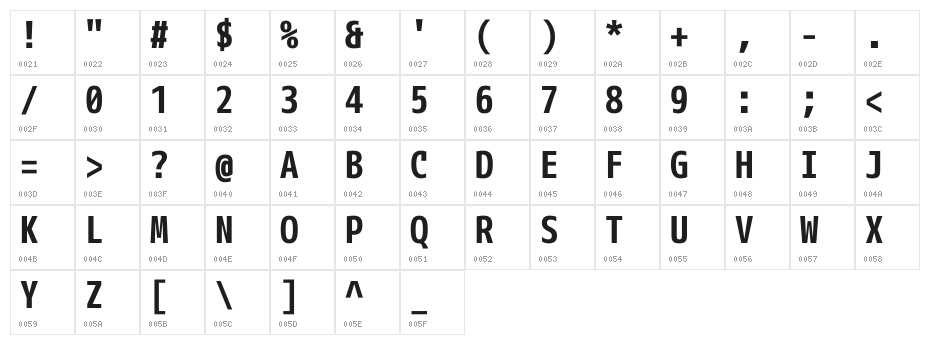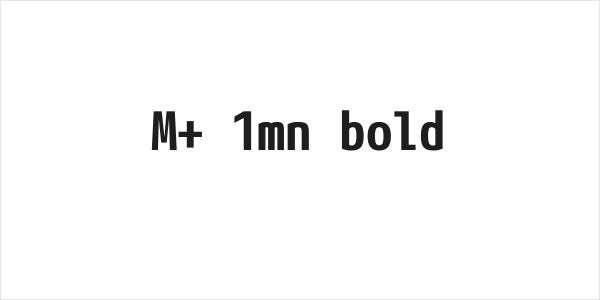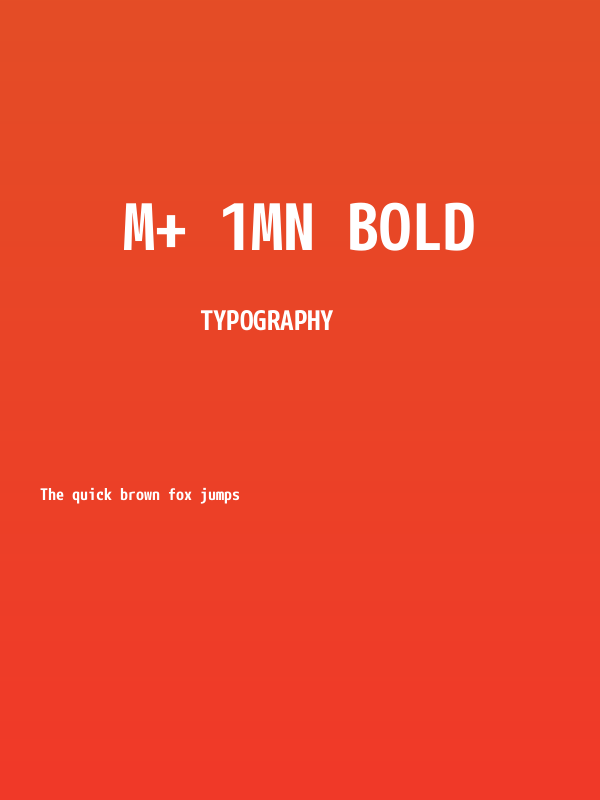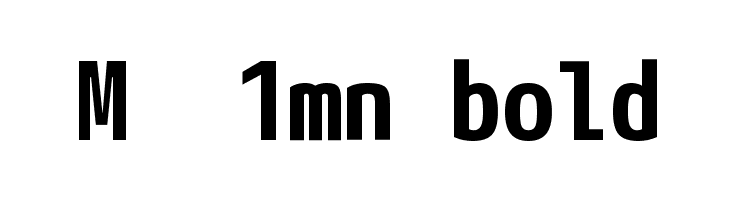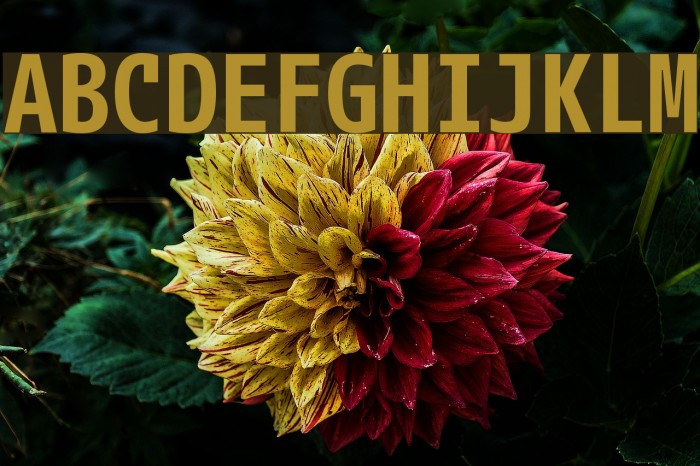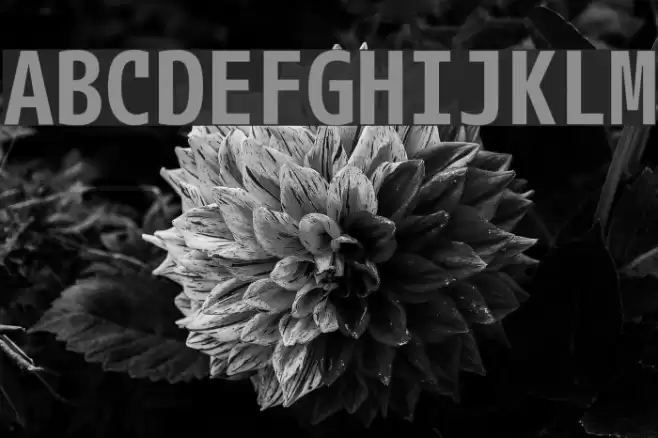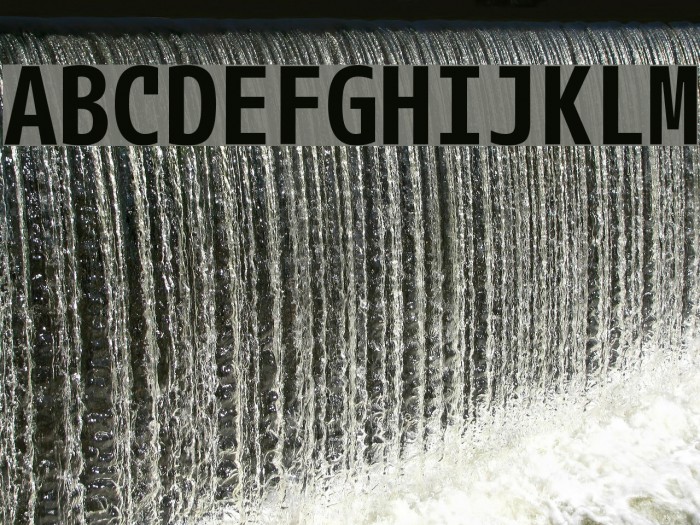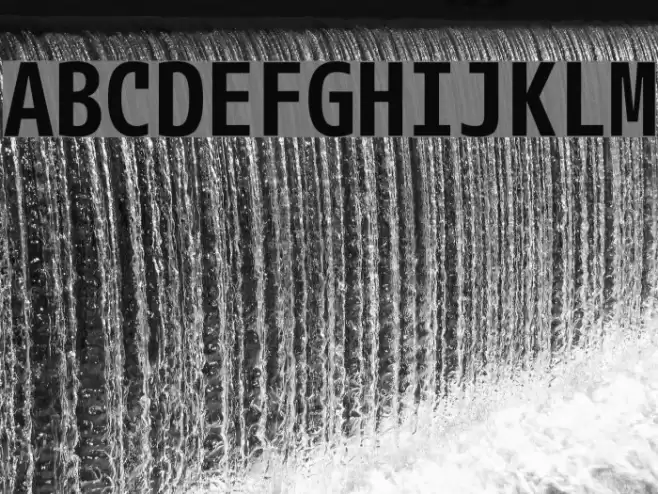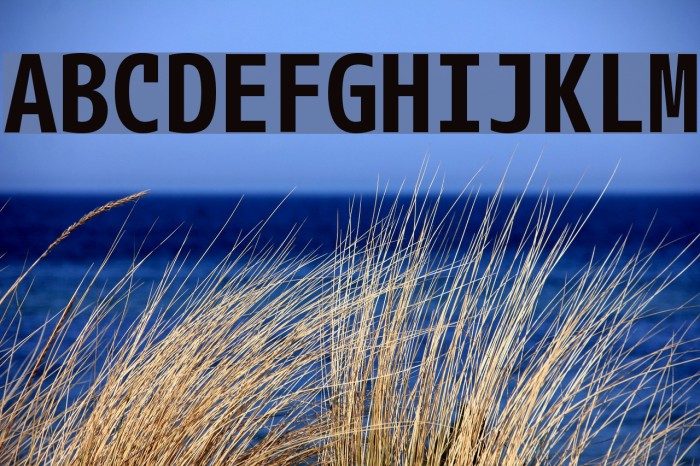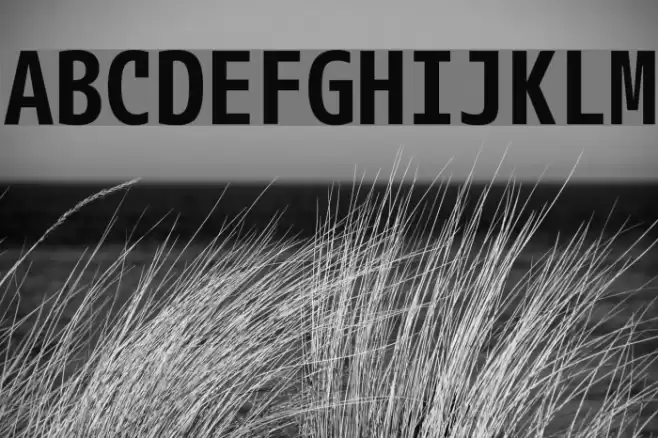
M+ 1mn bold Font
M+ 1mn bold Description
This font features a bold and modern sans-serif style with clean, straight lines and uniform stroke widths. The uppercase and lowercase letters are well-proportioned, maintaining a consistent height and width that enhances readability. The numerals are distinct and clear, making them suitable for various applications. Special characters are designed with the same boldness, ensuring they stand out effectively. The overall design is straightforward yet impactful, making it versatile for both digital and print media.
| Use Case | Headlines, Logos, Digital interfaces |
| Proposed Projects | Ideal for branding, advertising, headlines, and digital interfaces where clarity and impact are essential. |